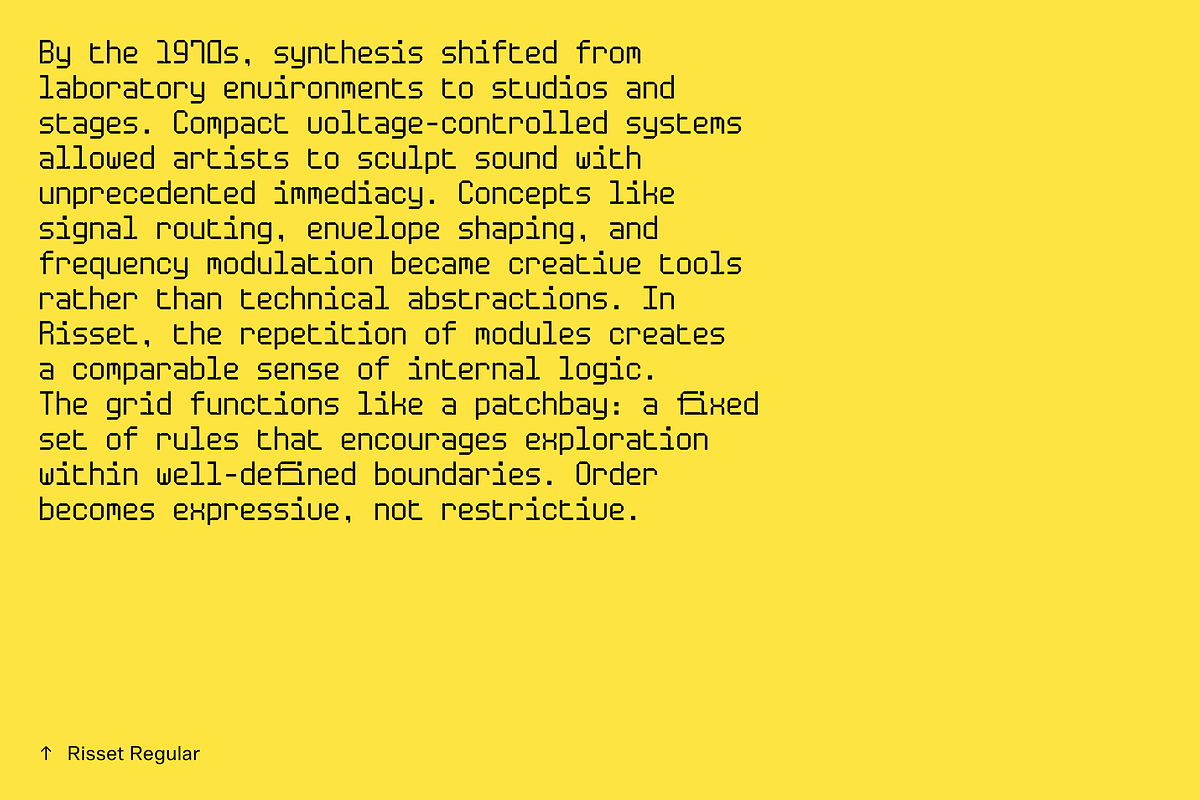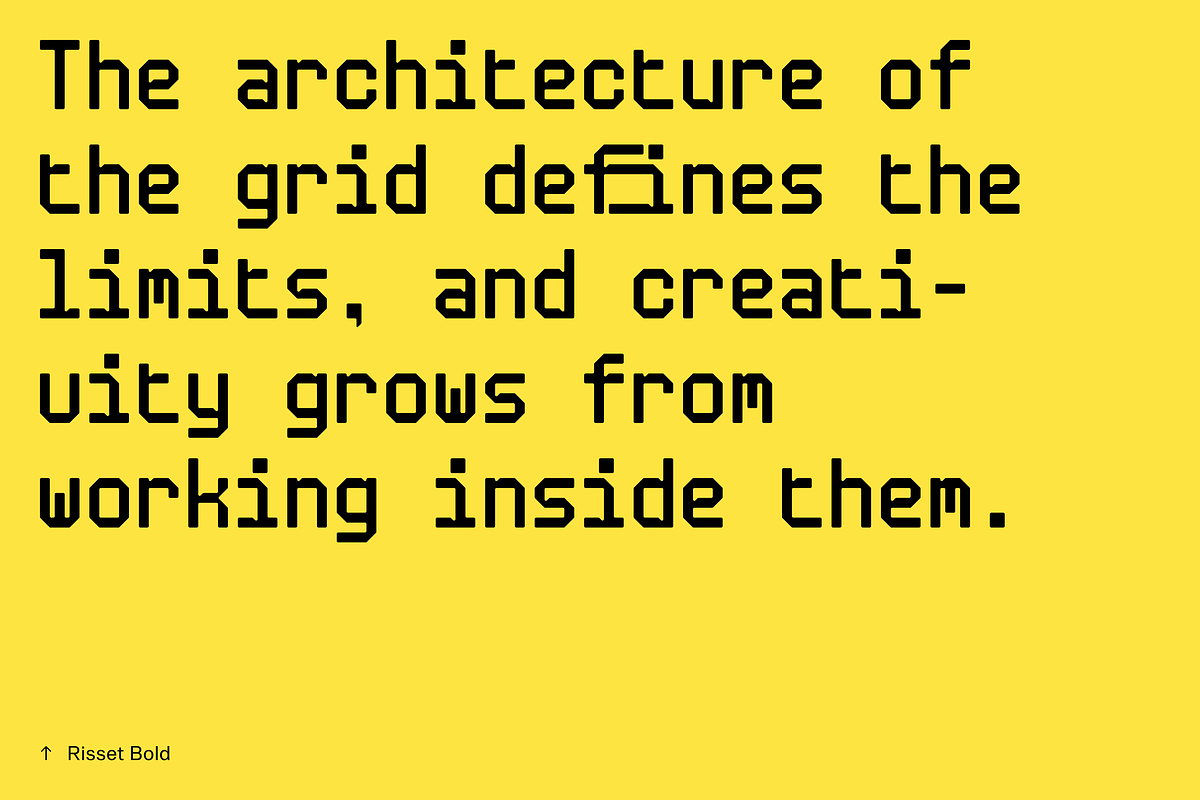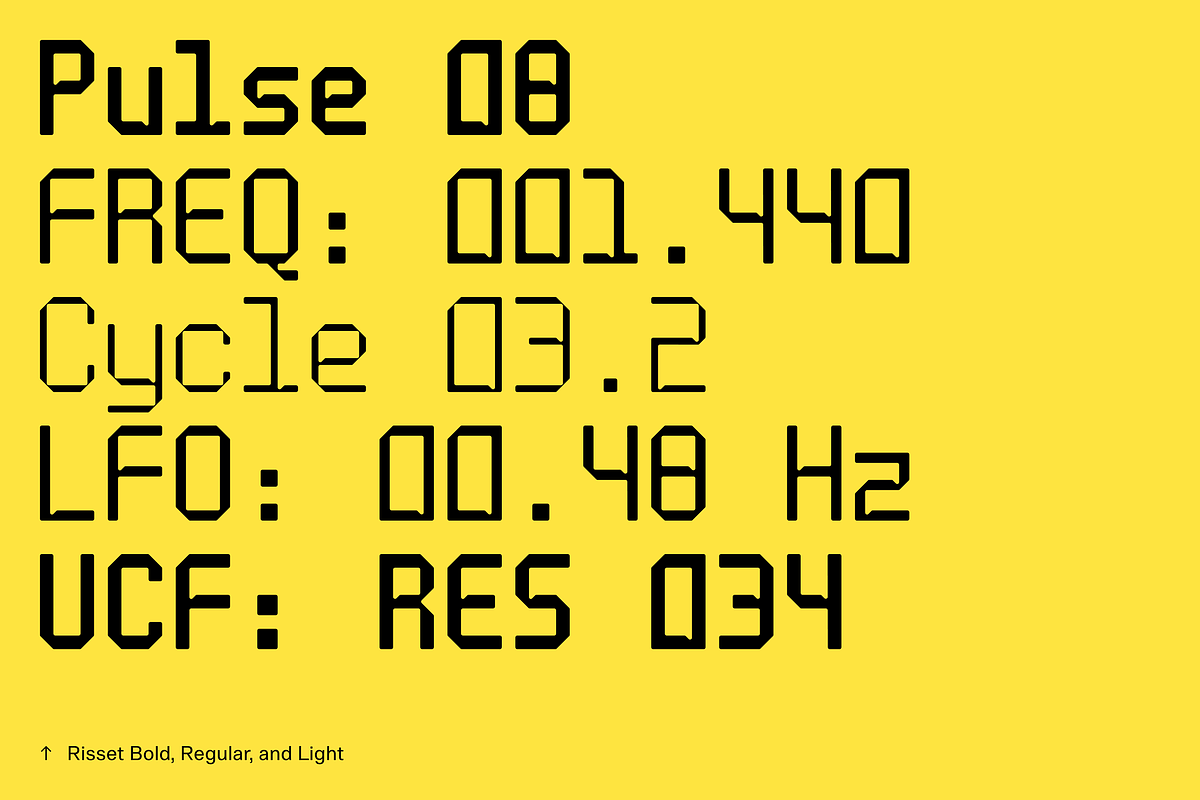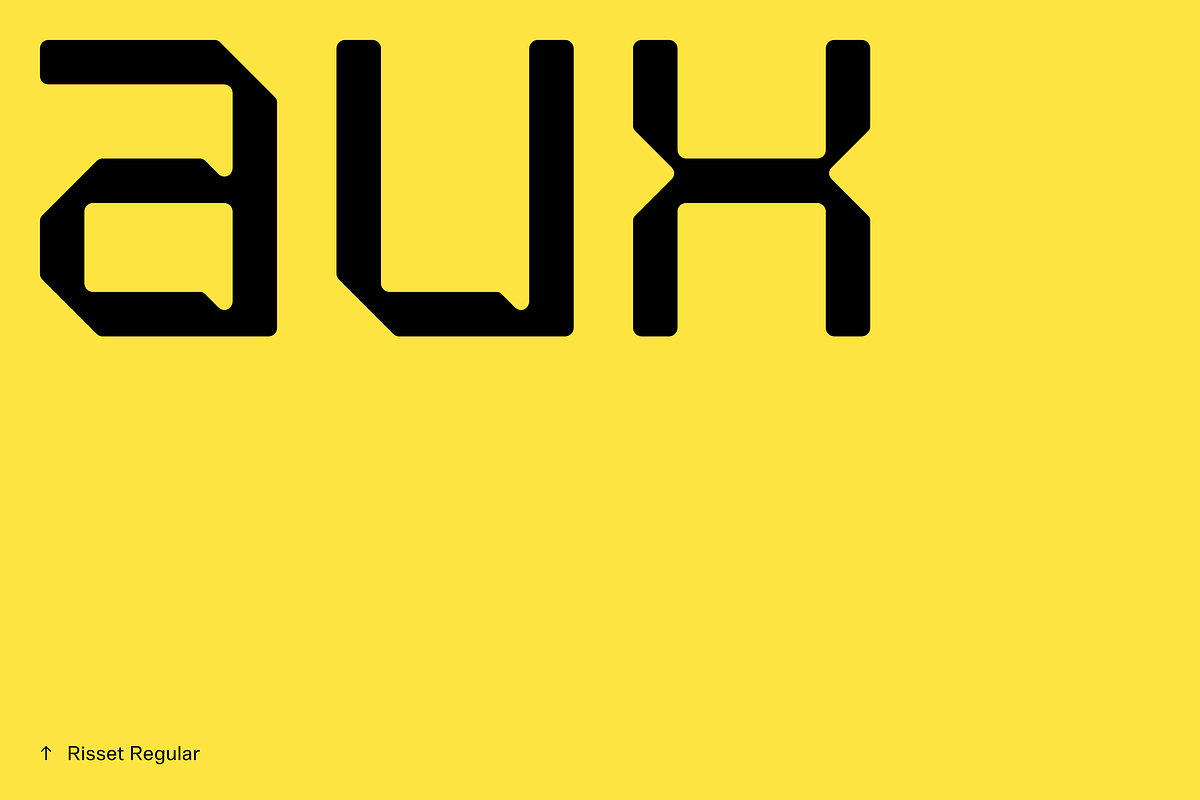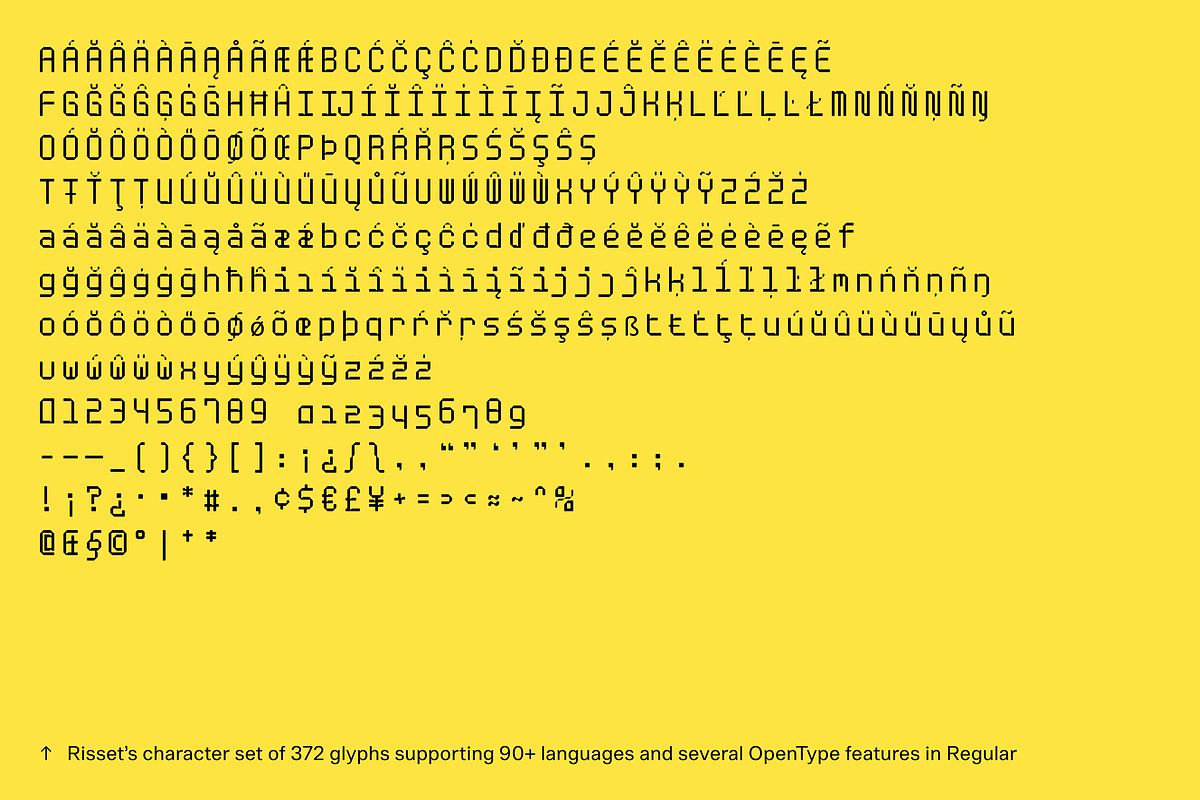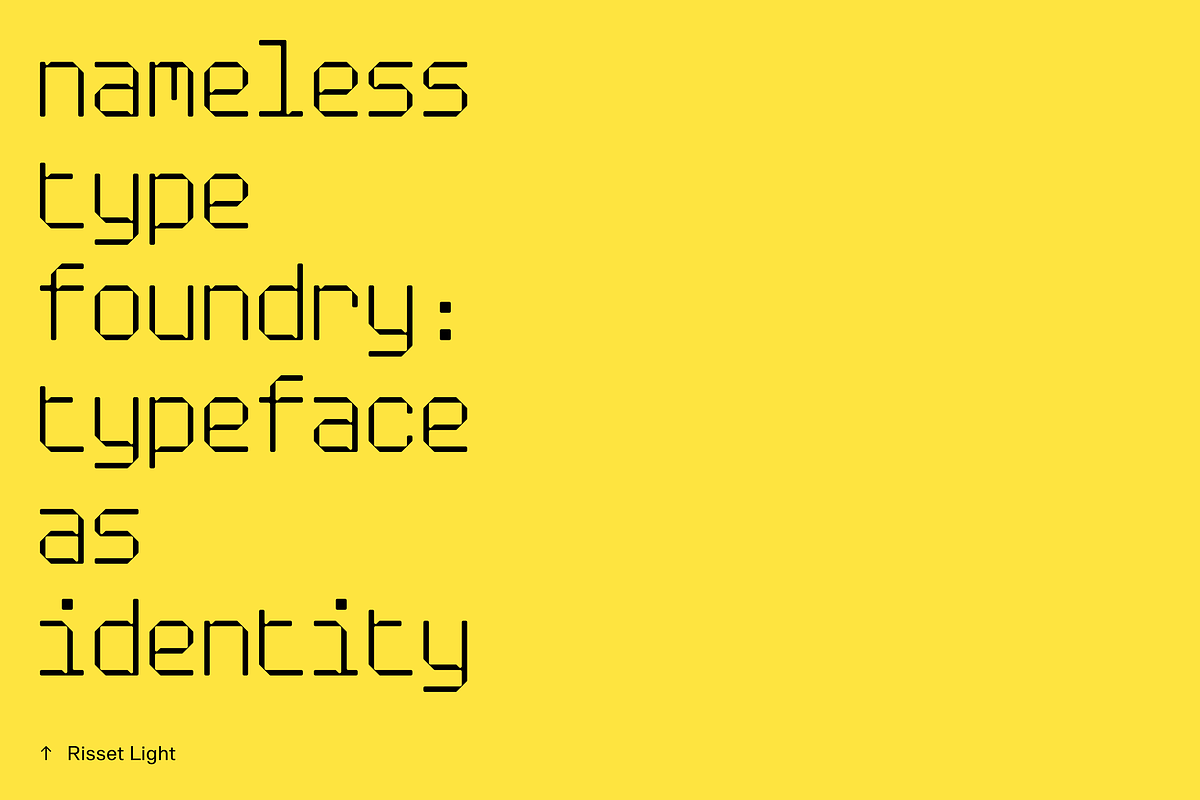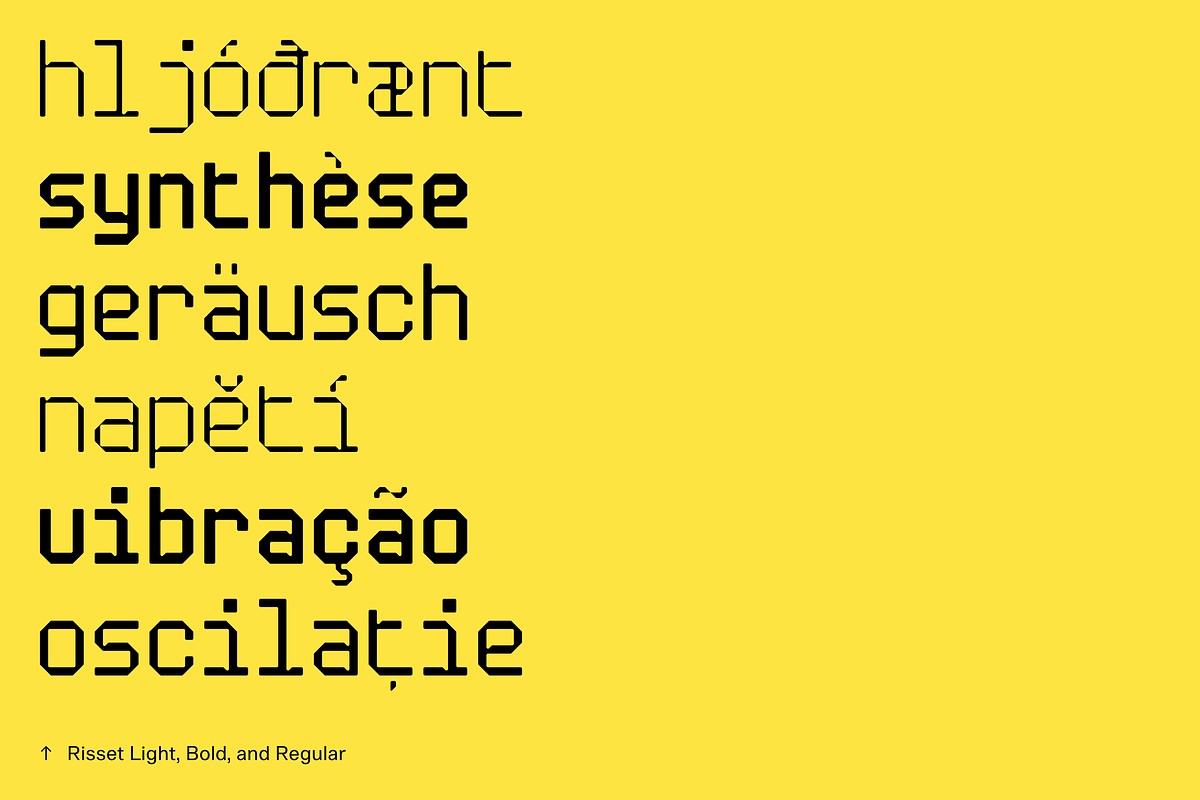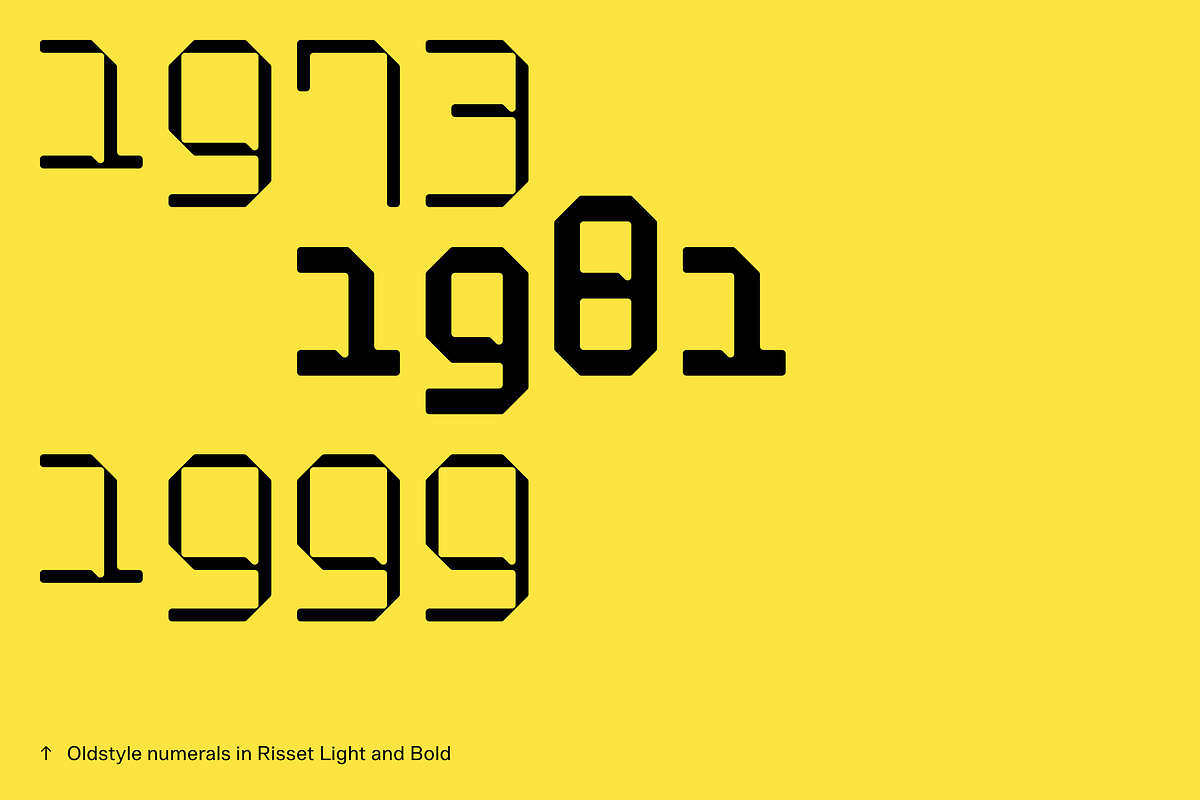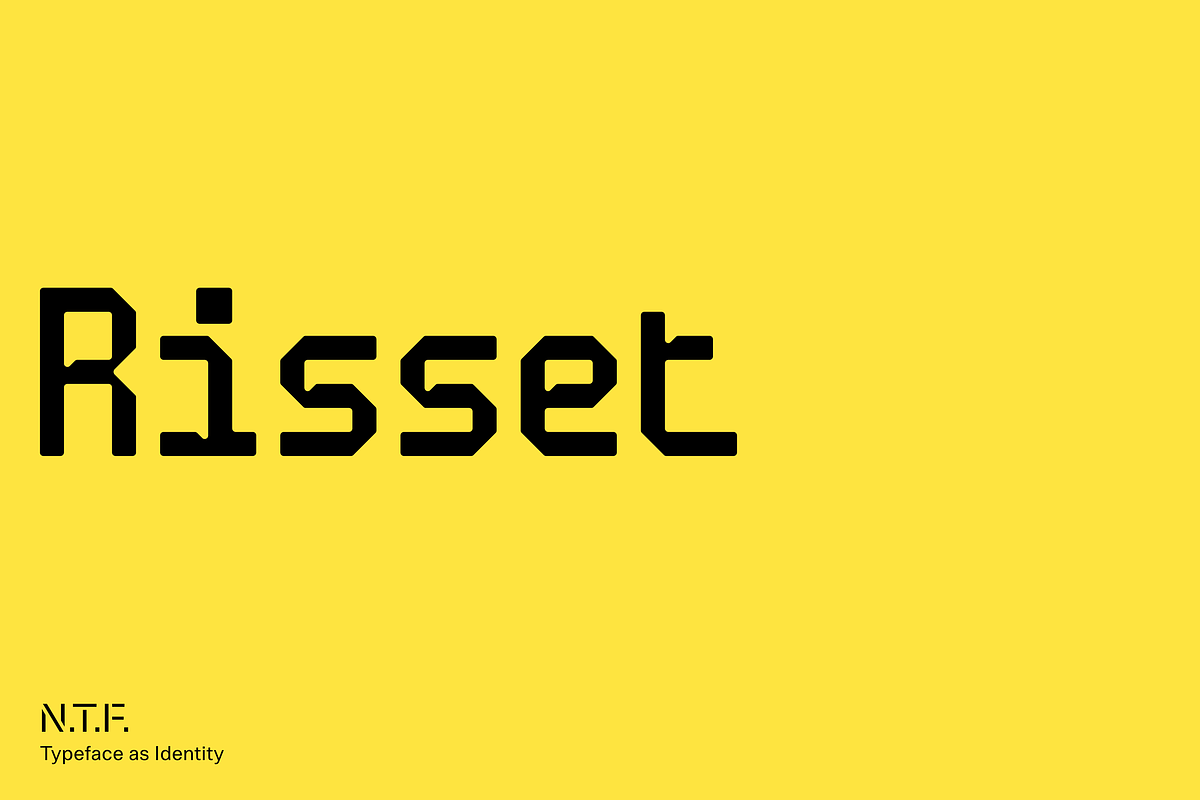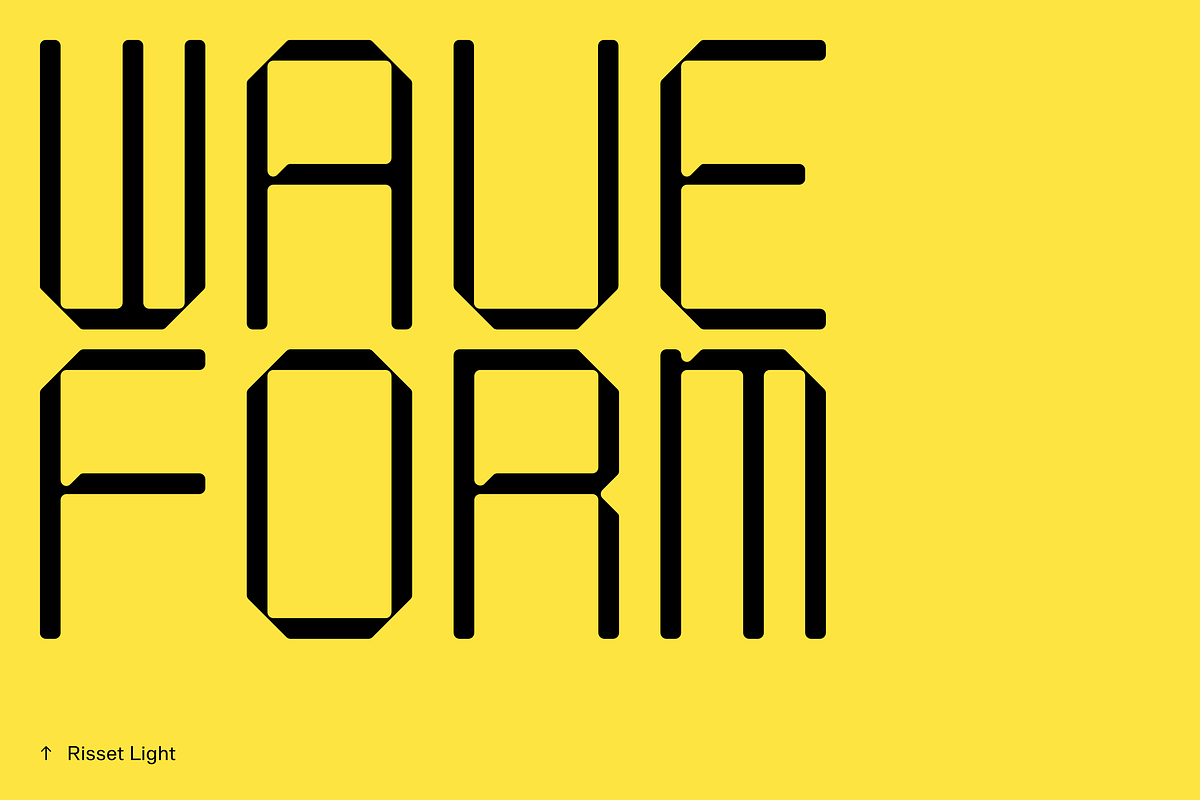
Risset
Risset: A Monowidth Font Formed By A Strict Grid
Inspired by the development of synthesizers, Risset is a modular monowidth typeface shaped by a fixed grid and a minimal set of construction rules. Its controlled proportions, uniform spacing, and purposeful detailing emphasize structure over style, producing a stable texture where each character contributes to a predictable overall rhythm. The resulting forms occupy space with consistency, turning lines of text into evenly paced sequences that read as much like system output as they do written language.
The design echoes the logic of early electronic instruments, where limited components were arranged to create surprising complexity. Oscillators, filters, and patching methods relied on simple building blocks, yet small adjustments produced distinct results. Risset follows a similar approach. Every glyph draws from the same underlying grid, and variation emerges through disciplined constraint rather than expressive gesture. By aligning stroke placement, aperture size, and horizontal metrics, the typeface turns modular construction into a coherent typographic voice.
Available in three weights and as a variable font, Risset contains 372 glyphs with support for 90+ languages, and includes ligatures, case-sensitive forms, oldstyle numerals, and alternate characters delivered through OpenType features. Designed for applications where typographic regularity and predictable alignment are central to the layout, Risset lends itself to systematic compositions, manual-like environments, and typography in which text serves simultaneously as message and structural material.